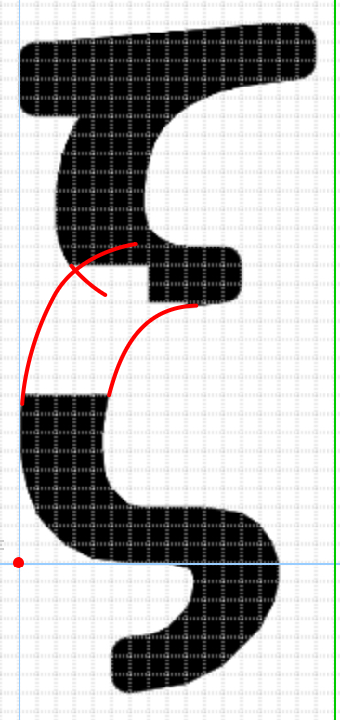
• Decided to try my hand at finishing what @SUMMER701 started by making some lowercase letters for his "Kapow Super Pro" version
hmm... is it still done
there're some spacing problems
NOTE: This is a collaborative project with @SUMMER701
will x be complete.
nevermind it's completed.
lowercase t does have a tail.
Tailed t complete
i kinda retraced ξ.
wait a minute nevermind
I tried the same thing (finishing Summer's Kapow) yet you have done better. Looks awesome.
i think you forgot to update the font. (i think)
UPDATE: Ω has been redone!